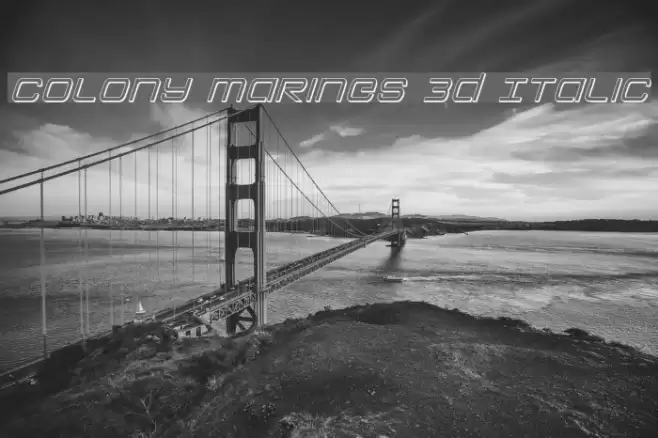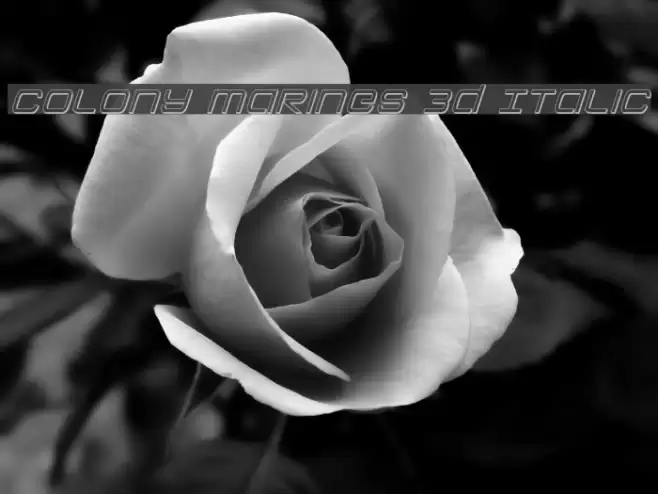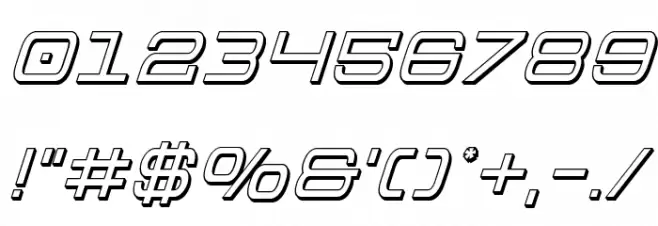
Colony Marines 3D Italic Font
Colony Marines 3D Italic Description
This font features a futuristic and dynamic 3D italic style, characterized by its outlined letterforms that convey a sense of motion and depth. The characters are designed with a consistent slant, enhancing the italicized effect, while the open, geometric shapes give it a modern and technological appearance. The uppercase and lowercase letters maintain uniformity in style, with clean lines and sharp angles. The numerals and special characters follow the same design principles, ensuring a cohesive look across all glyphs. This font's unique style makes it suitable for projects that require a contemporary and edgy aesthetic.
A futuristic 3D italic font with outlined geometric letterforms from Sci-fi fonts.
- Proposed Projects: Ideal for sci-fi themed designs, video game graphics, tech branding, and futuristic posters.